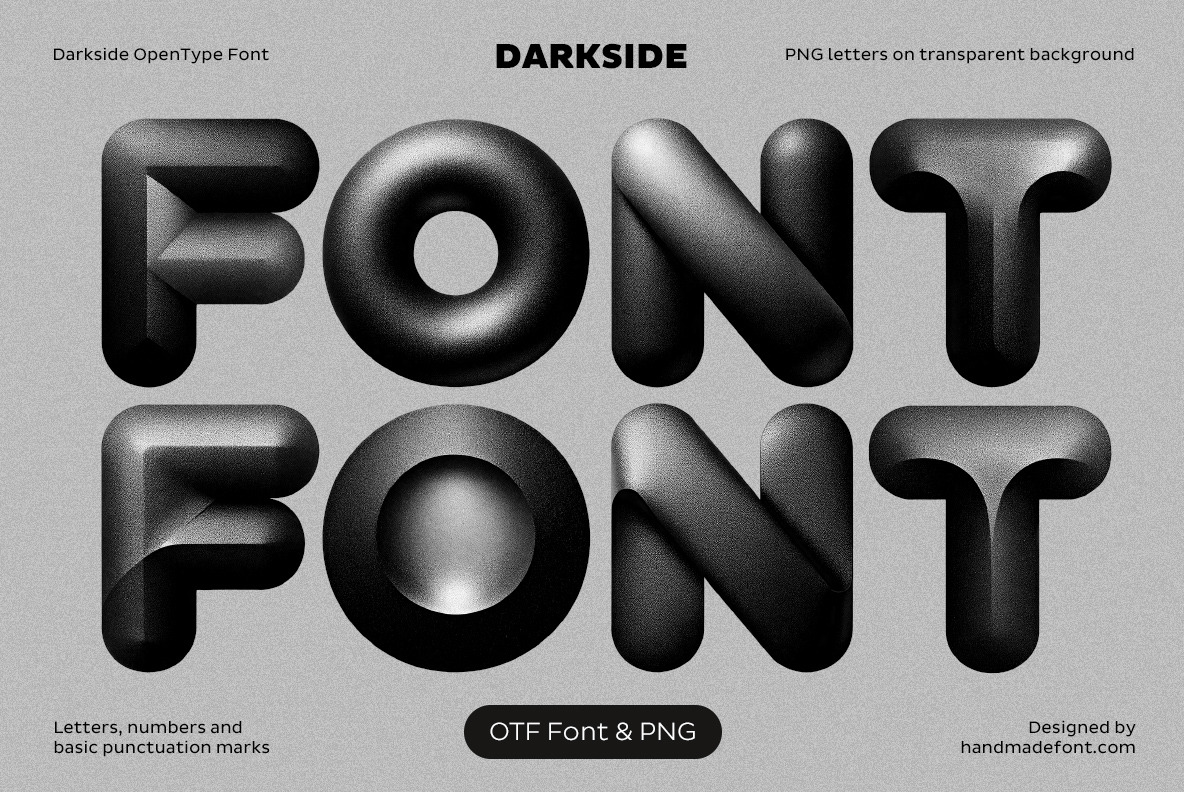
Darkside Font
Darkside Font is a typographic beast born in the shadows of a digital eclipse. Its plush, inflated forms and velvety black gradients give each letter a smooth, space-age vibe—like bubble wrap designed by Darth Vader. Equal parts soft and sinister, this font feels futuristic, fabulous, and a little bit dangerous. It's perfect for anyone who wants their words to hover somewhere between luxury and sci-fi noir. Whether you're designing for music, fashion, tech, or just trying to look cooler than the next creative, Darkside delivers attitude in every curve. It doesn’t whisper—it purrs in sleek monochrome. Bold. Mysterious. Irresistibly dark.
A high definition OpenType Font. Contains uppercase characters, numerals and basic punctuation. (Draw height roughly 800 pixels). All letters and glyphs that comprises this font you can see on the preview.
- Letters : A B C D E F G H I J K L M N O P Q R S T U V W X Y Z
- Numbers : 0 1 2 3 4 5 6 7 8 9
- Others : ! ? - . ' $ € % & # @